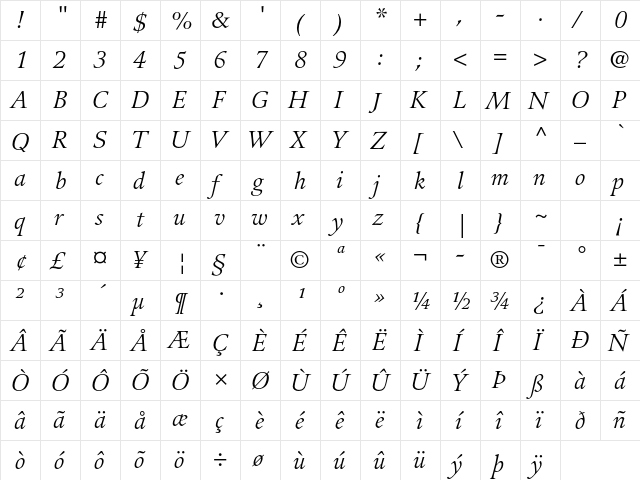
Guardi LT Std 56 Italic Font Preview
| Style | 56 Italic |
| Designer | Reinhard Haus |
Design Context for Guardi LT Std Typeface
Guardi LT Std offers clean, dependable letterforms without strong stylistic allegiance, making it a practical choice for designers who need flexibility. The slanted form adds forward momentum and visual energy. Its slender proportions lend an understated elegance to any composition.
Pro Tip: Try Guardi LT Std for annotation and caption copy alongside an upright companion — the contrast in angle creates a dynamic but ordered typographic system.